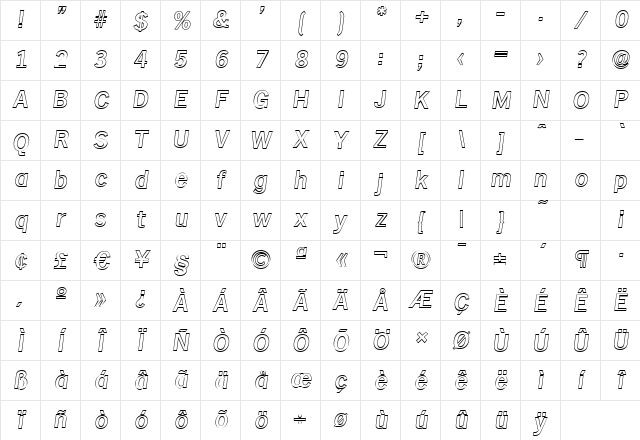
StephenBeckerOutline-Medium Italic
Design Context for StephenBeckerOutline-Medium
StephenBeckerOutline-Medium is built around its visual character rather than neutral utility - its distinctive forms are designed to make an impression at display sizes. The slanted form adds forward momentum and visual energy.
Font Pairing: Pair with a clean neutral sans-serif for body copy to let StephenBeckerOutline-Medium's character lead without overwhelming the composition.
Pro Tip: Use StephenBeckerOutline-Medium exclusively at display sizes - it was designed to be seen, not read at length. Let a neutral companion handle body copy.